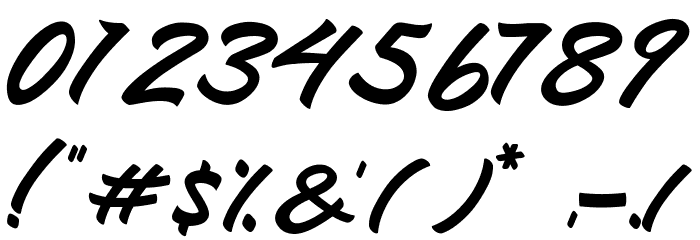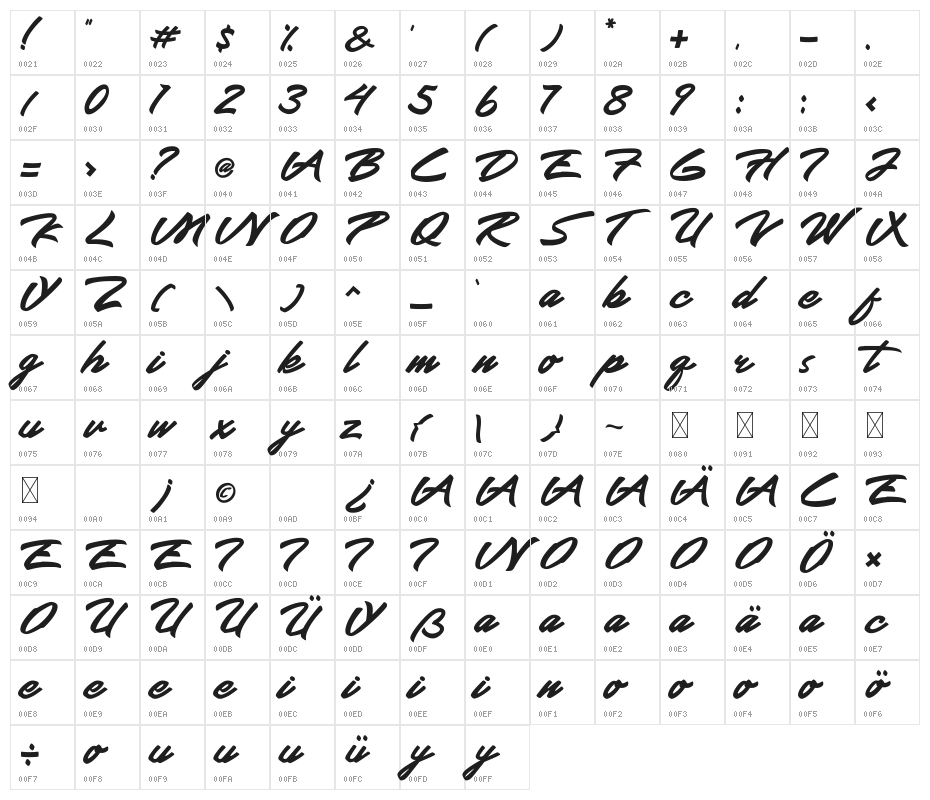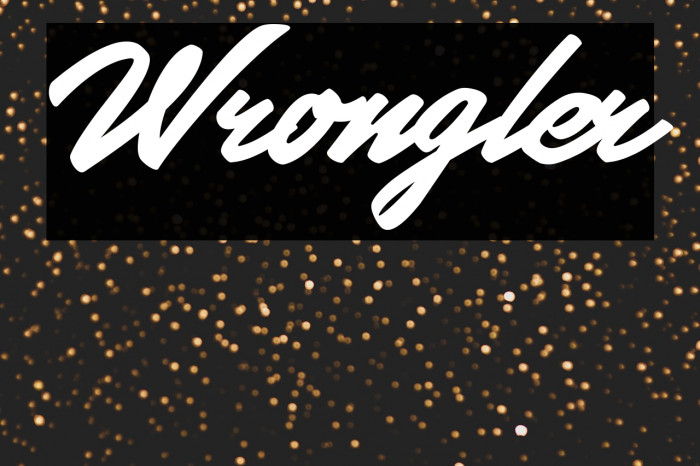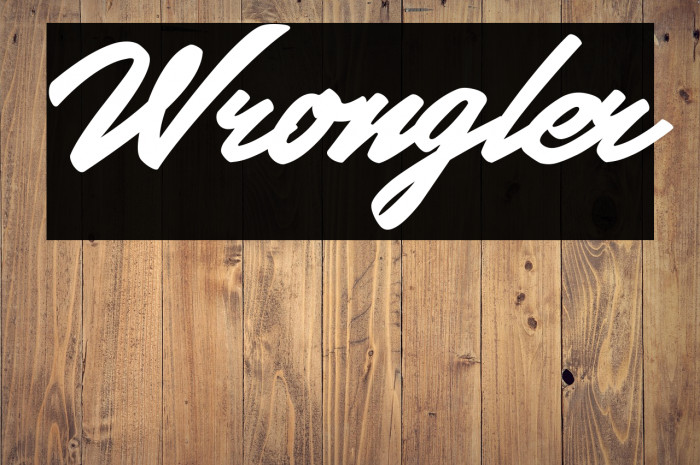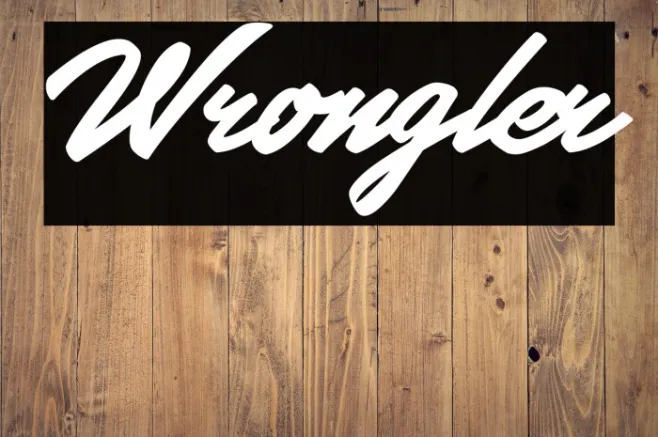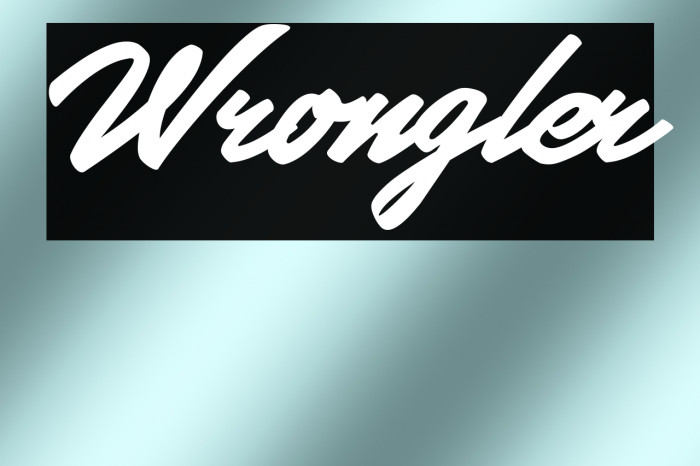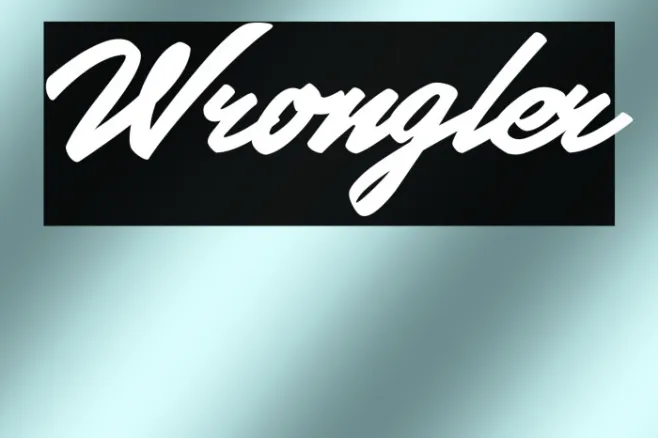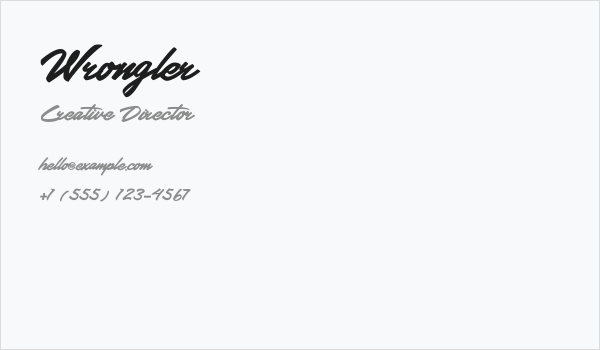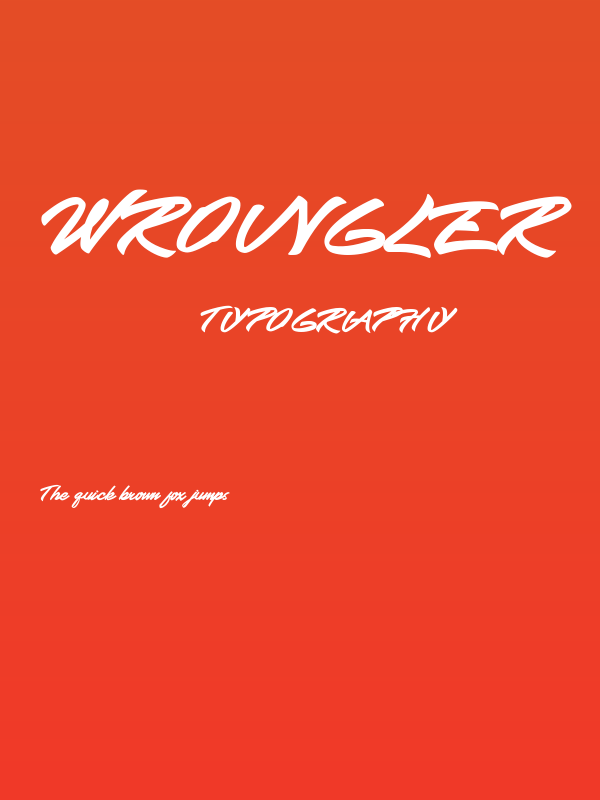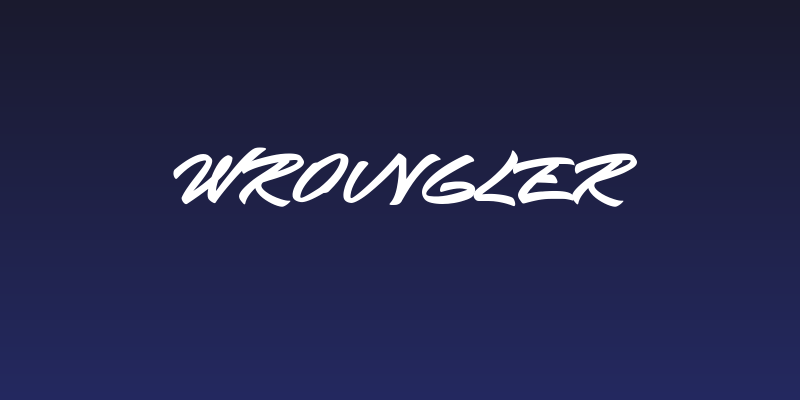
Wrongler Font
Wrongler Description
This font features a bold, cursive style with a fluid and dynamic appearance. The letters are interconnected, creating a seamless flow that mimics natural handwriting. The uppercase letters are slightly more angular, adding a touch of formality, while the lowercase letters maintain a smooth, rounded form. The numerals are consistent with the overall style, offering a cohesive look. Special characters are included, maintaining the same bold and expressive quality. This font is ideal for projects that require a personal, yet impactful touch.
| Proposed Projects | Ideal for branding, invitations, greeting cards, and any design needing a personal touch. |